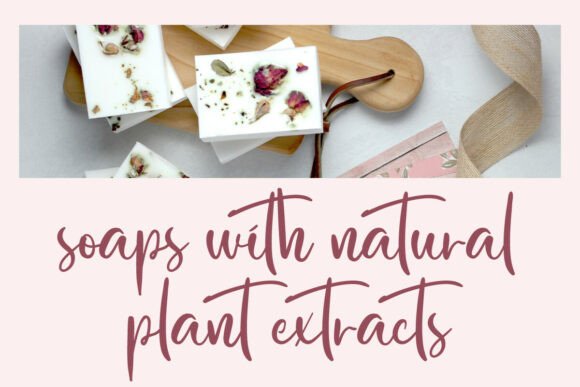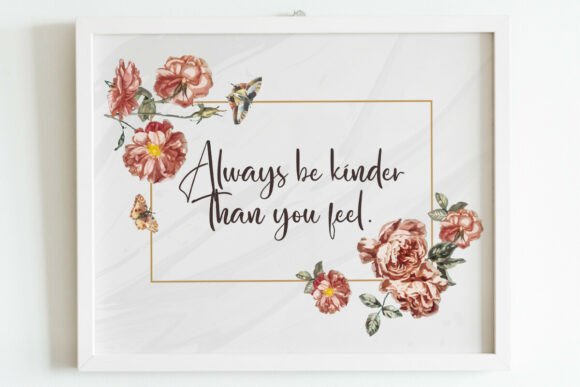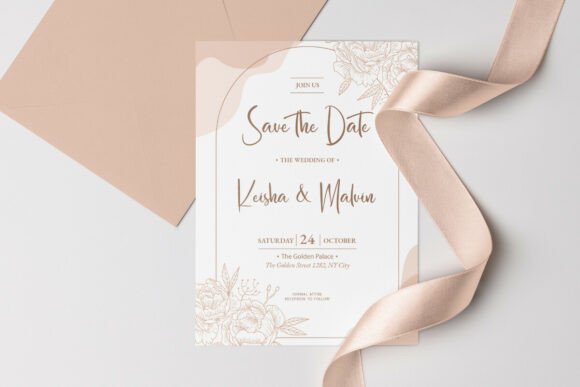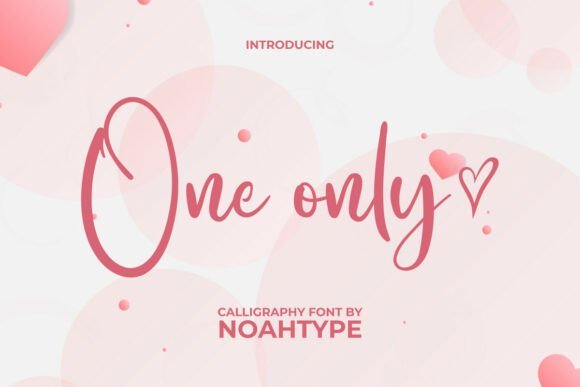
Introduction to One Only Font
Elevate your romantic and high-end projects with the One Only font, an exquisitely graceful calligraphy typeface that flows with the natural rhythm of a hand-penned love letter.
This typeface features elegant, sweeping loops and a slender weight that feels both intimate and sophisticated, making it the perfect choice for luxury wedding stationery, bespoke jewelry branding, and delicate social media overlays When you integrate the One Only typeface into your work, you are adding a touch of authentic emotion and personalized flair that standard scripts simply cannot replicate.
One Only Font offers exceptional quality and versatility, making it a valuable addition to your design toolkit. Whether you’re creating for personal projects or commercial use, One Only Font delivers professional results.